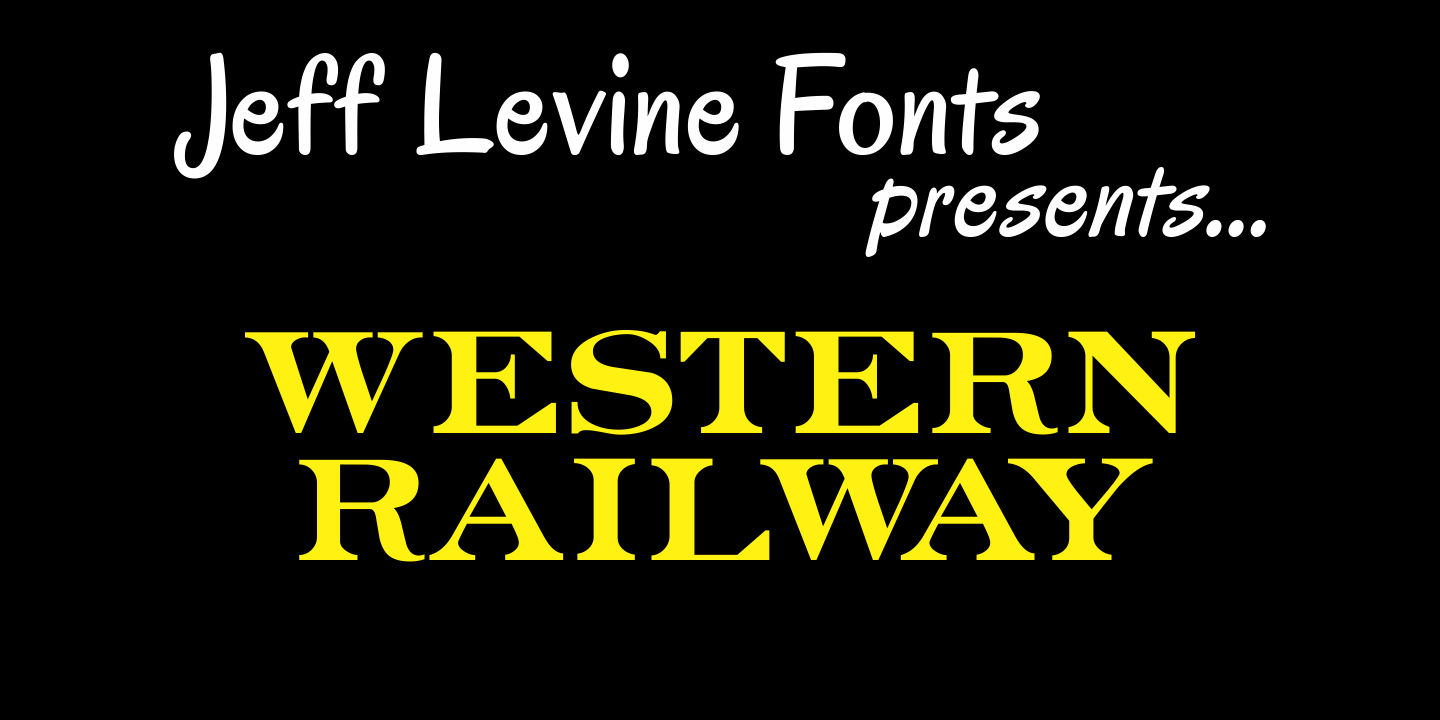
Western Railway
Western Railway JNL was inspired by sample lettering found in an old sign painter's reference book published during the early part of the 20th Century and modified for today's digital applications by Jeff Levine.
Western Railway by Jeff Levine Fonts